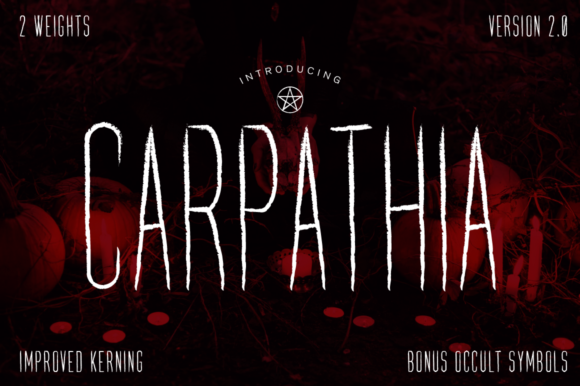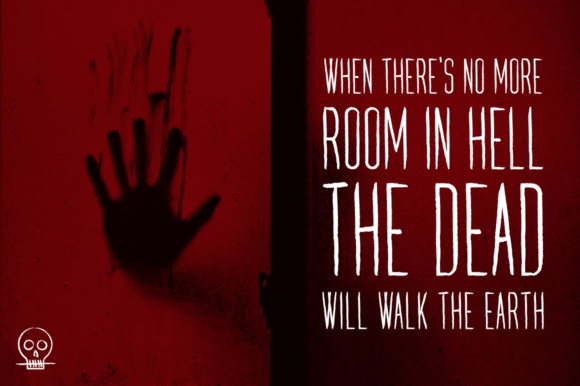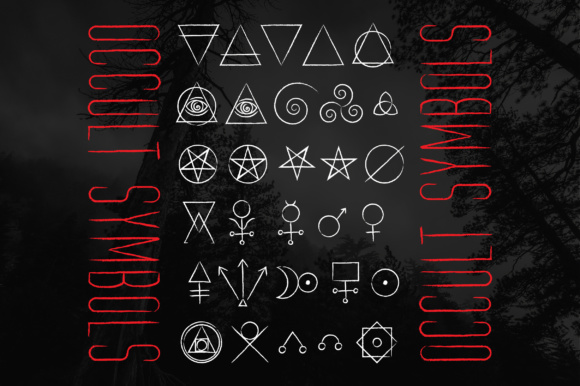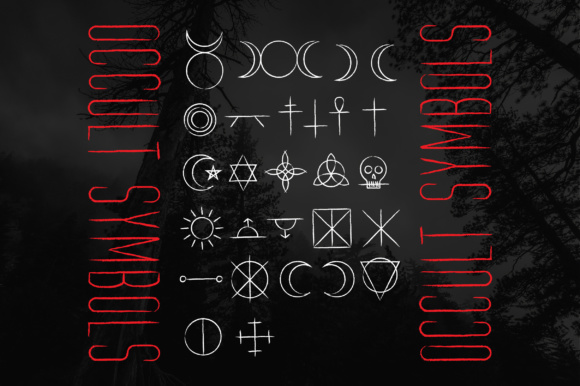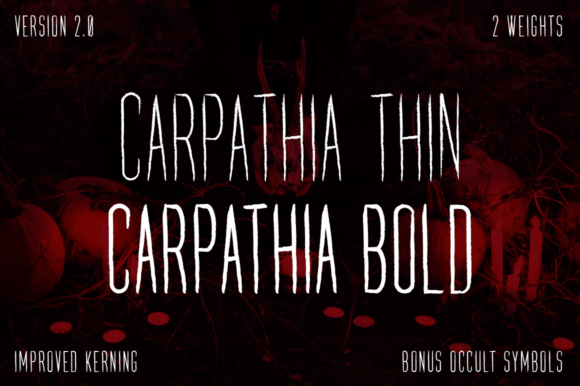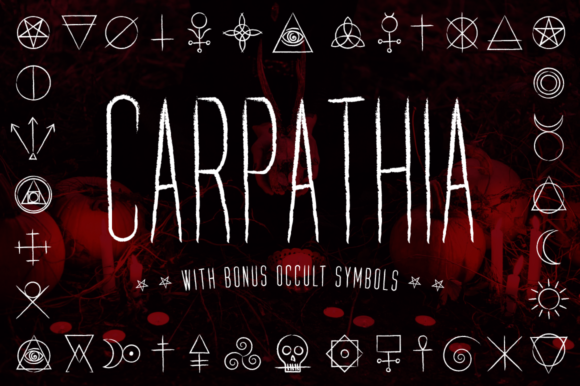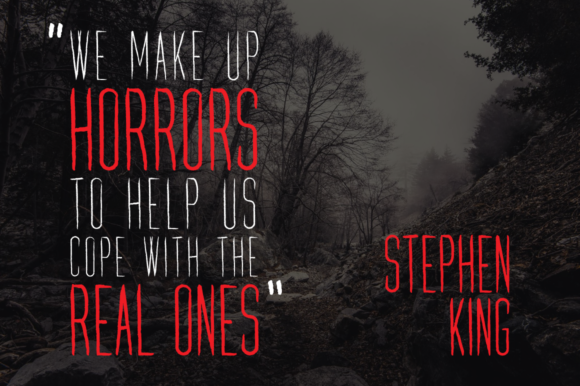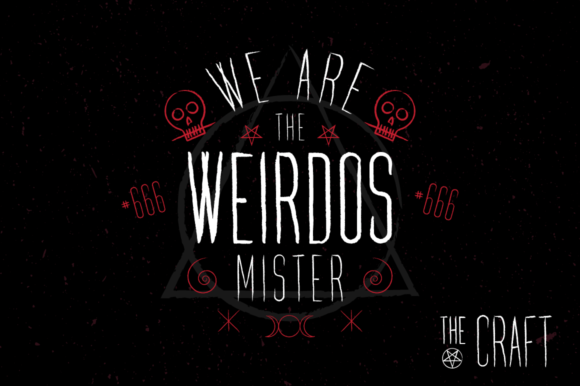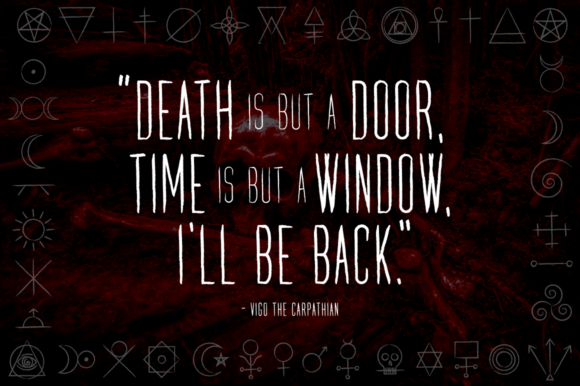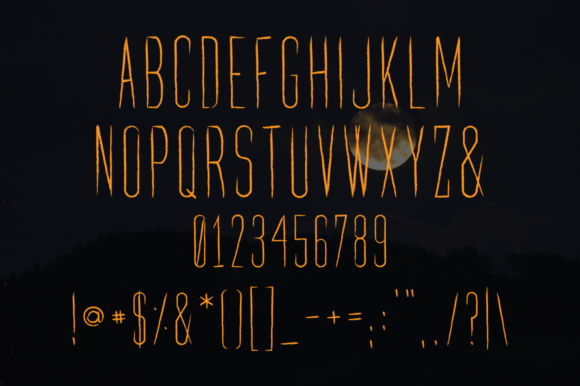
Carpathia Font
About Carpathia Font
Carpathia is a horror display typeface inspired by witchcraft and sorcery. Its ultra condensed carved style evokes a spooky handmade feel that will add character to any project.
Carpathia is best used for headings, logos, quotes, gig posters, apparel designs, invitations, greeting cards, packaging, album covers and more.